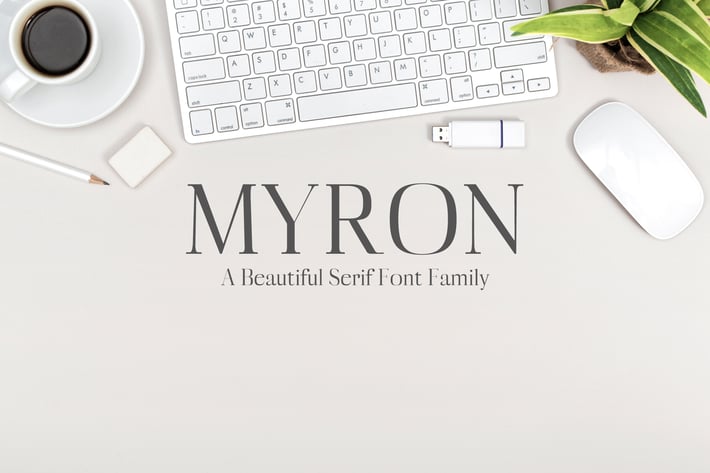
Myron Serif Fonts Family Pack
Myron Serif Typeface is a beautiful set of display fonts. Myron family contains 5 weights, from Light to Bold. Myron is Perfect for headlines, posters, branding, packaging, presentations, short texts.
- Light, Thin, Medium, Regular, Bold
- 249 glyphs
Myron Font Features:
- Uppercase Multilingual Letters
- Lowercase Multilingual Letters
- Non English Characters ( Latin Supplement + Latin Extended A)